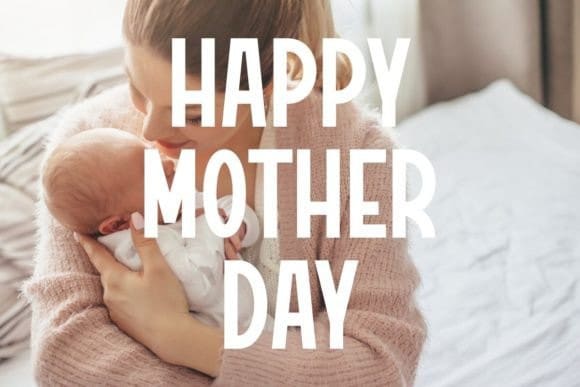
Mama Canva Font
Mama Canva Font is condensed vintage and clean bold sans serif that inspired by mother’s day themes. This font adds a touch of nostalgic elegance and clarity to any design, ensuring your creations stand out with a timeless and heartfelt appeal. Perfect for creating beautiful backgrounds, quotes, posters, t-shirts, mugs, tote bags, and invitation papers.